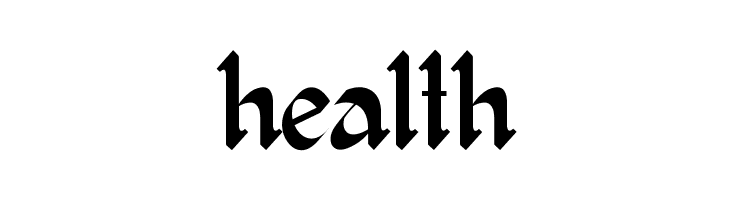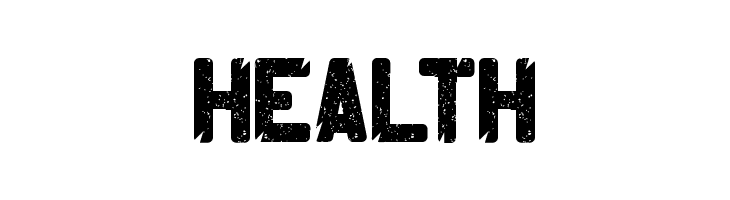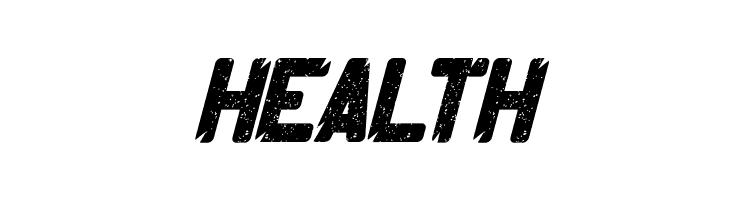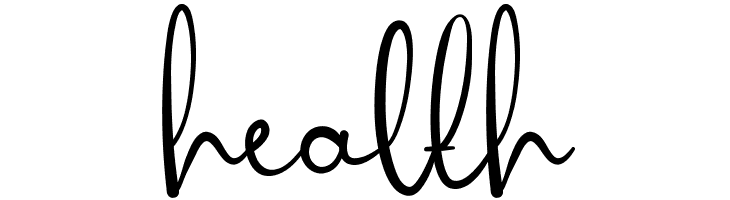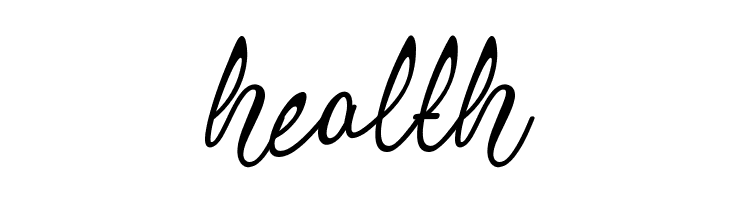
A bold, medieval-inspired font with sharp, angular lines and decorative flourishes.
A playful, bold font with whimsical, energetic characters and high contrast.
A bold, distressed font with a vintage, textured appearance.
A bold, distressed italic font with a vintage, grunge style.
A modern, handwritten cursive font with elegant, flowing lines and dynamic contrast.
A fluid and elegant script font with a dynamic, handwritten style.
An elegant, high-contrast font with refined, slender letterforms and decorative flourishes.
An elegant, high-contrast italic font with a refined and stylish appearance.
A playful, bold, and decorative font with unique uppercase letter designs.
An elegant and flowing script font with smooth, cursive strokes.